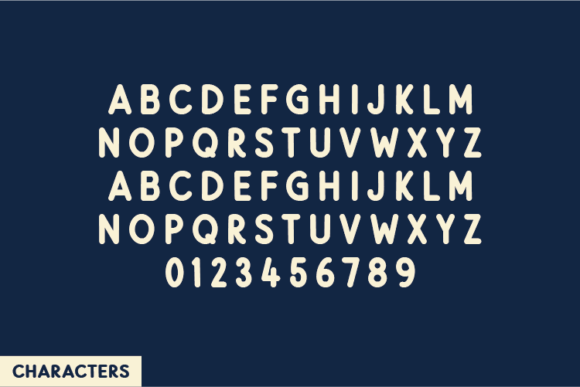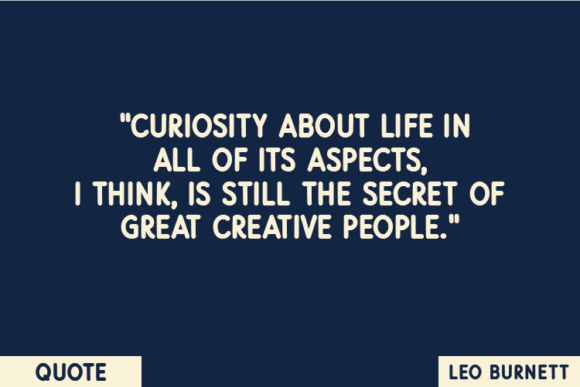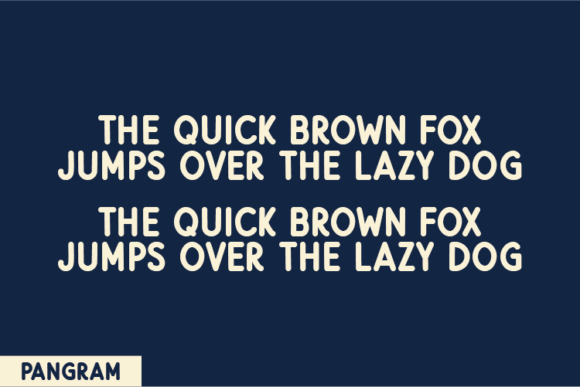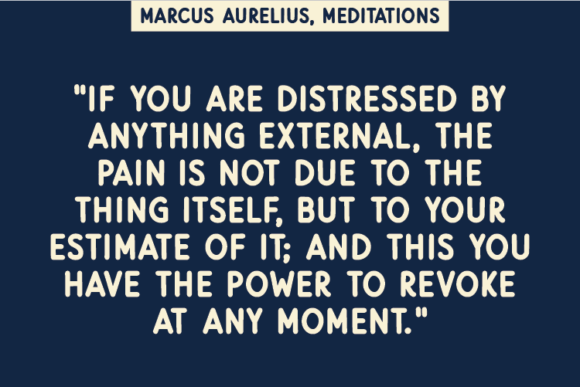
Introduction to Melanctha Font Font
Fonts play a crucial role in design, and the Melanctha Font font is a typeface that brings both character and versatility to any project. Whether you’re working on a branding project, a website, or a print design, the Melanctha Font font offers a unique style that can elevate your work.
Melanctha is a casual and neat handwritten font.
Whether youβre using it for crafts, digital design, presentations, or making greeting cards, this font has the potential to become your favorite go-to font, no matter the occasion .
Key Features of Melanctha Font Font
Why Choose Melanctha Font Font?
The Melanctha Font font is more than just a typeface β it’s a design tool that helps you communicate your message with style and clarity. Its unique character set and versatile design make it suitable for a wide range of applications, from elegant invitations to bold headlines.
With its carefully crafted letterforms and balanced proportions, the Melanctha Font font ensures readability and visual appeal across all mediums.
What makes Melanctha Font font special?
The Melanctha Font font stands out with its unique design, exceptional readability, and versatility across various design applications.